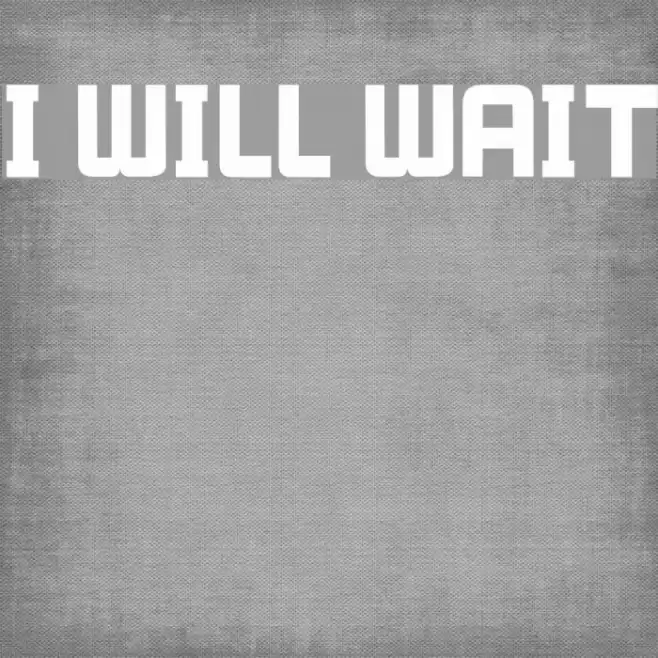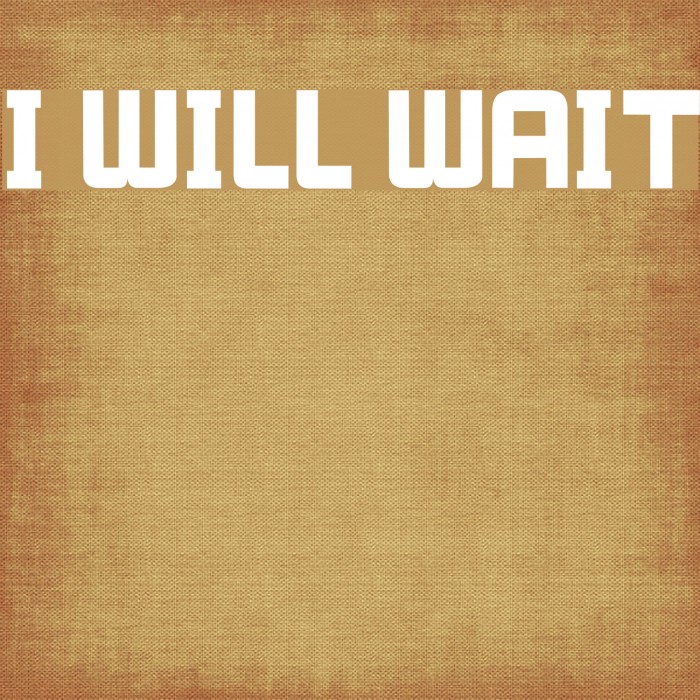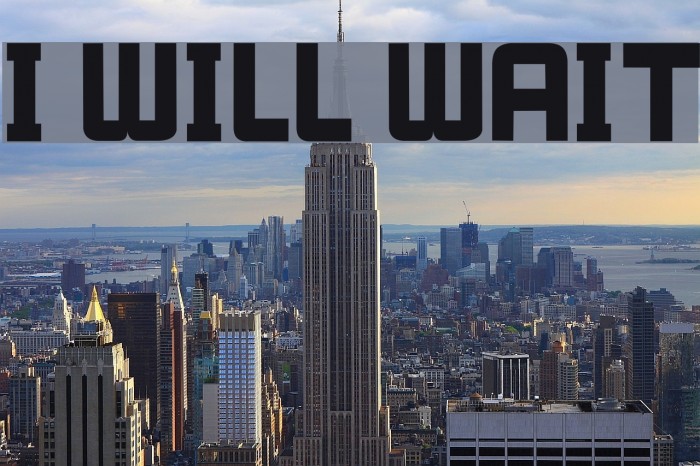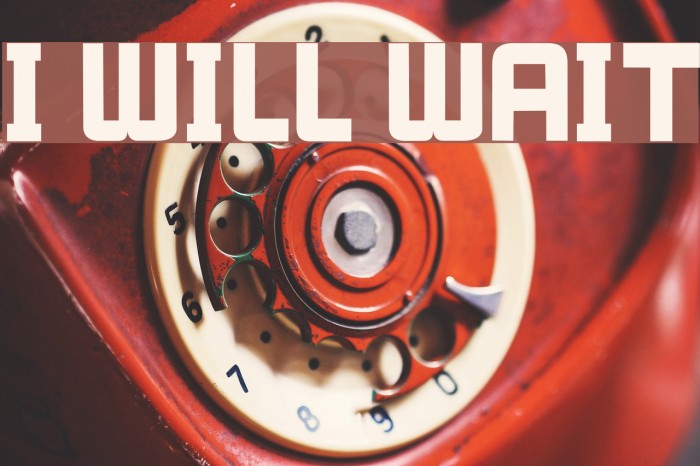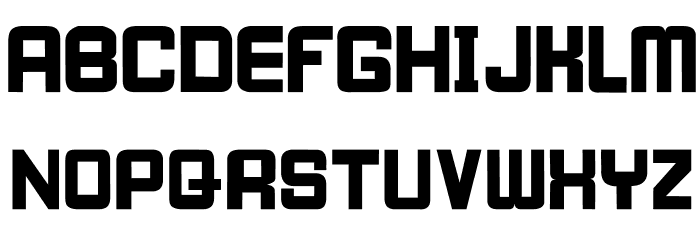
I WILL WAIT Font
I WILL WAIT Description
This font features a bold, geometric design with strong, block-like characters. The uppercase letters are uniform in height and width, creating a cohesive and structured appearance. The strokes are thick and consistent, contributing to a robust and impactful look. The font's style is reminiscent of industrial or futuristic themes, making it suitable for projects that require a modern and assertive aesthetic. The characters are evenly spaced, ensuring readability while maintaining a compact form. Overall, this font is ideal for making a statement in any design context.
A bold, geometric font with a modern, industrial feel from Uncategorized fonts.
- Proposed Projects: Ideal for branding, headlines, posters, and any design needing a strong, modern impact.